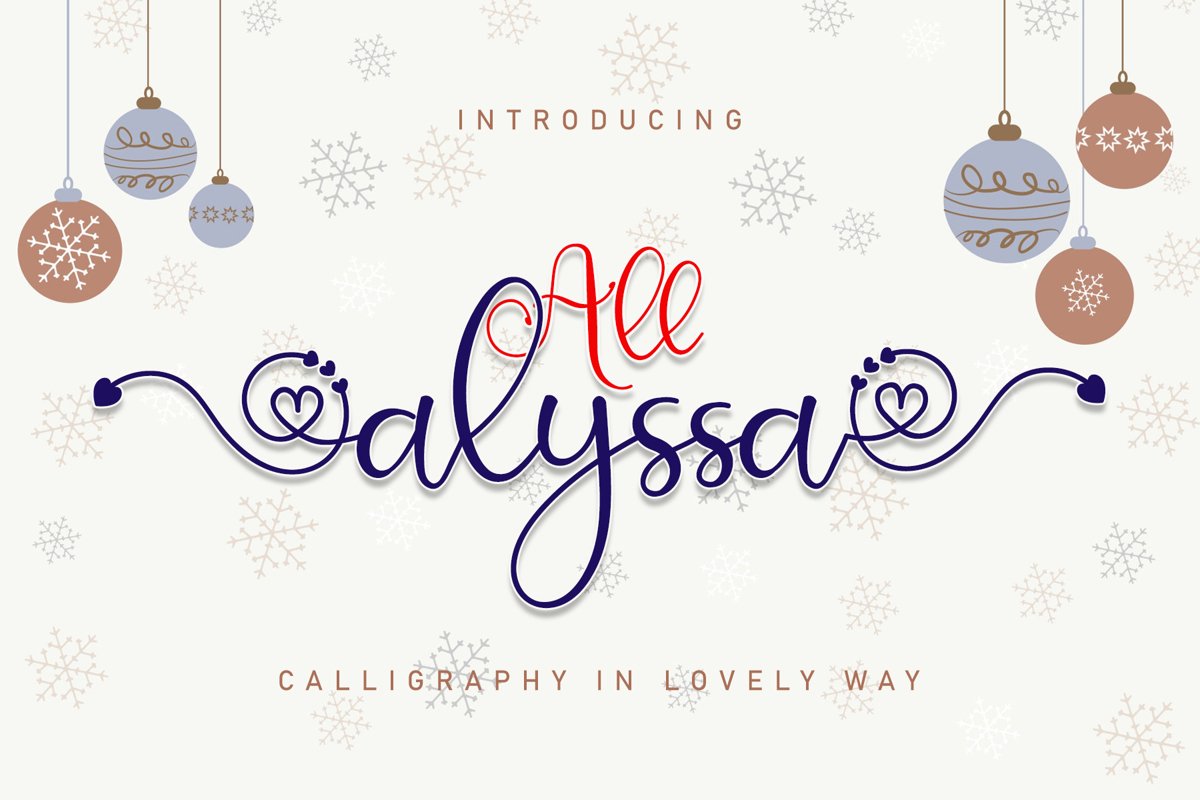
All Alyssa is beautiful and elegant script font with modernity touch. It has PUA Encoded love swashes that will make your project more lovely. All Alyssa is such the perfect script for any kind of your project, such as advertisements, branding, graphic design, quotes, wedding design, logo for online or offline business, photography, and others. Make your business more awesome! Features: +All Alyssa (OTF/TTF) +More than 300 Glyphs +PUA-Encoded for many alternates and ligatures +Can be used in any software, like Adobe Photoshop, Illustrator, even Microsoft Word, PowerPoint and others. +Multilingual glyphs.